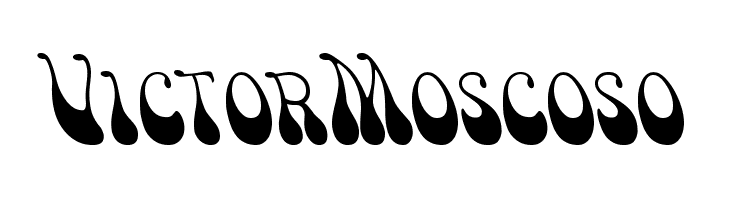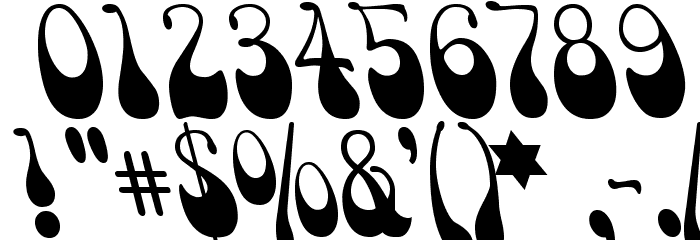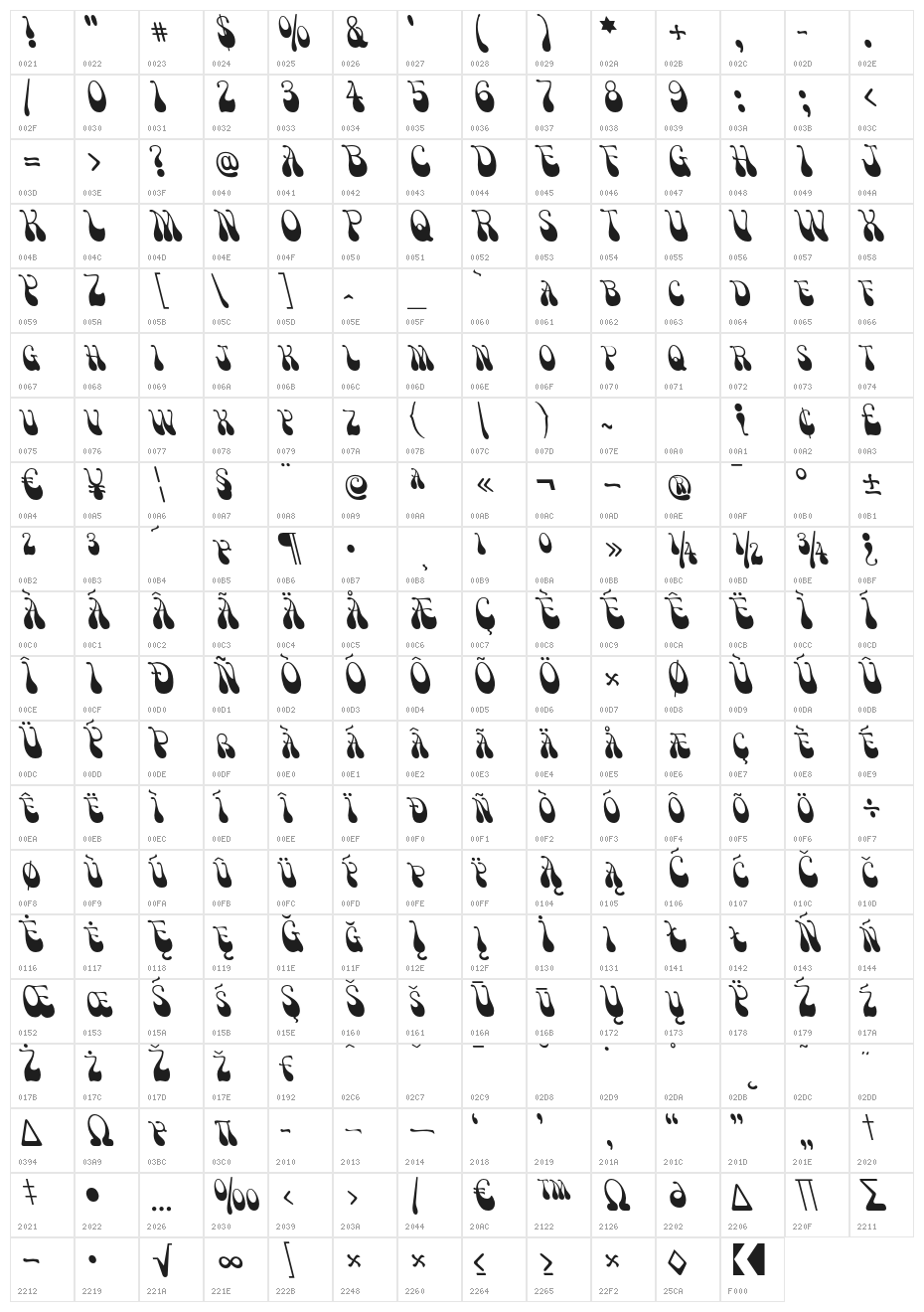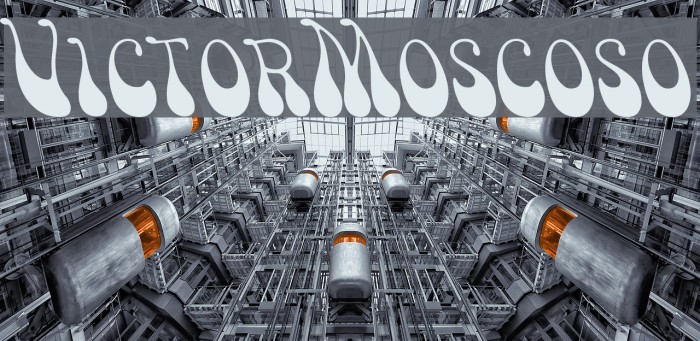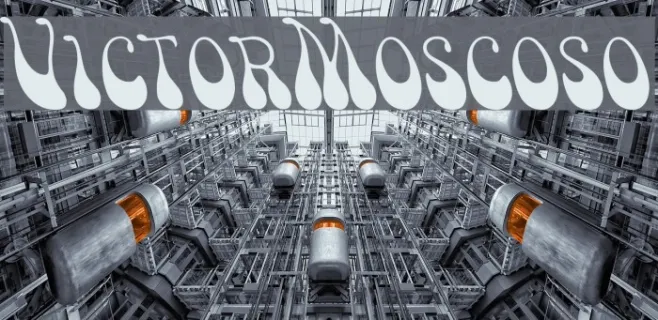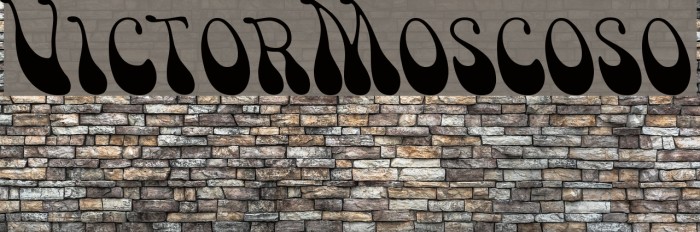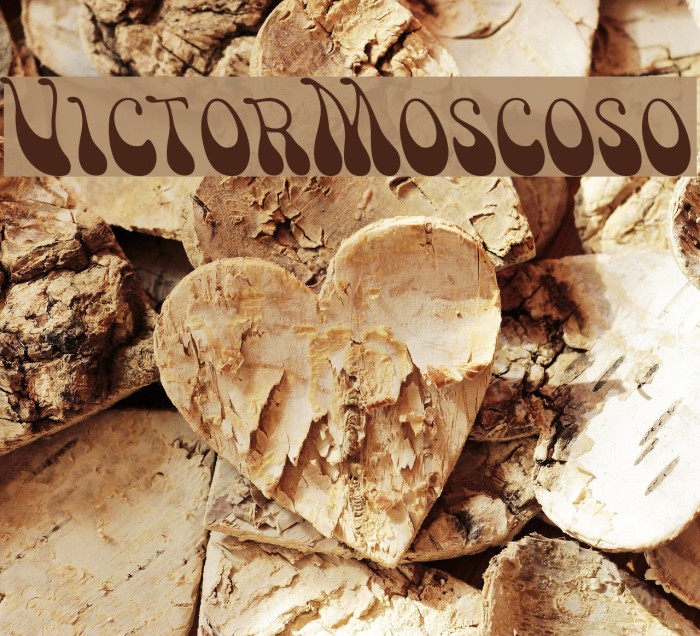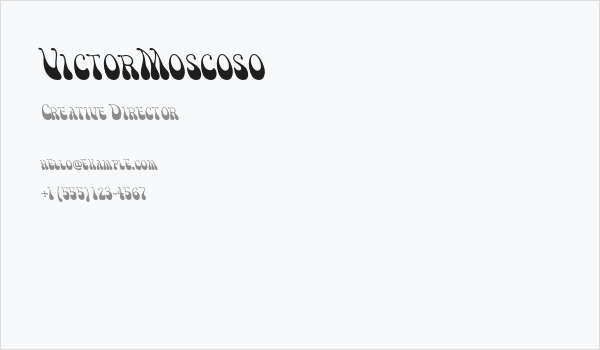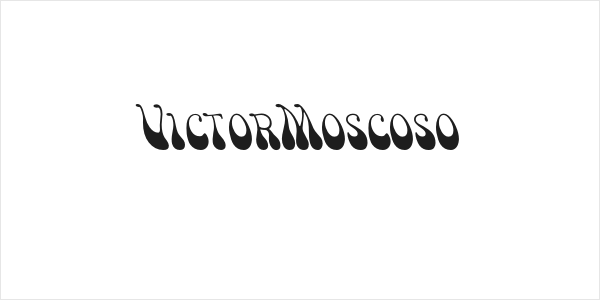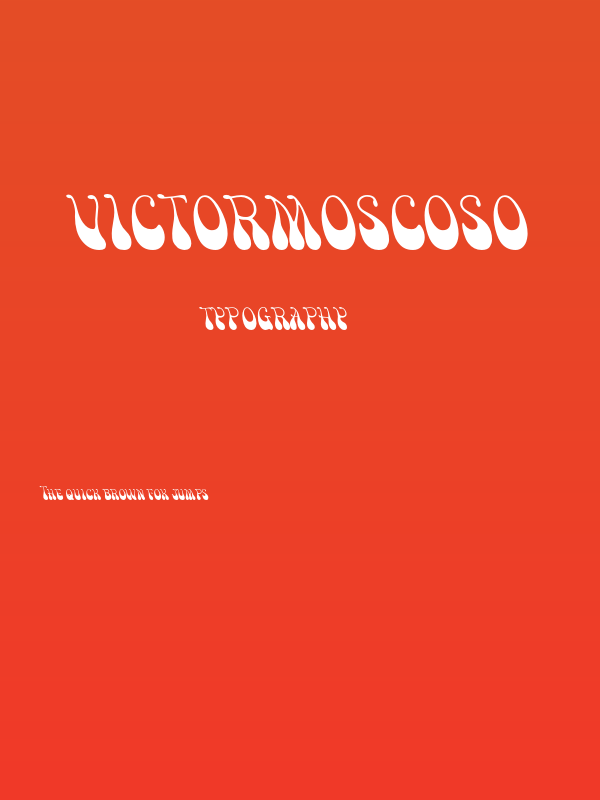
VictorMoscoso Font
VictorMoscoso Description
This font features a bold and fluid design, reminiscent of psychedelic and retro styles. The characters have a unique, dripping appearance, with thick, rounded strokes that create a sense of movement and energy. The uppercase and lowercase letters maintain a consistent style, with exaggerated curves and a playful, artistic flair. Numbers and special characters follow the same design principles, ensuring a cohesive look across all elements. The font's distinctiveness makes it ideal for eye-catching designs that require a touch of nostalgia and creativity.
| Proposed Projects | Ideal for music festival posters, retro-themed branding, album covers, and creative advertising campaigns. |